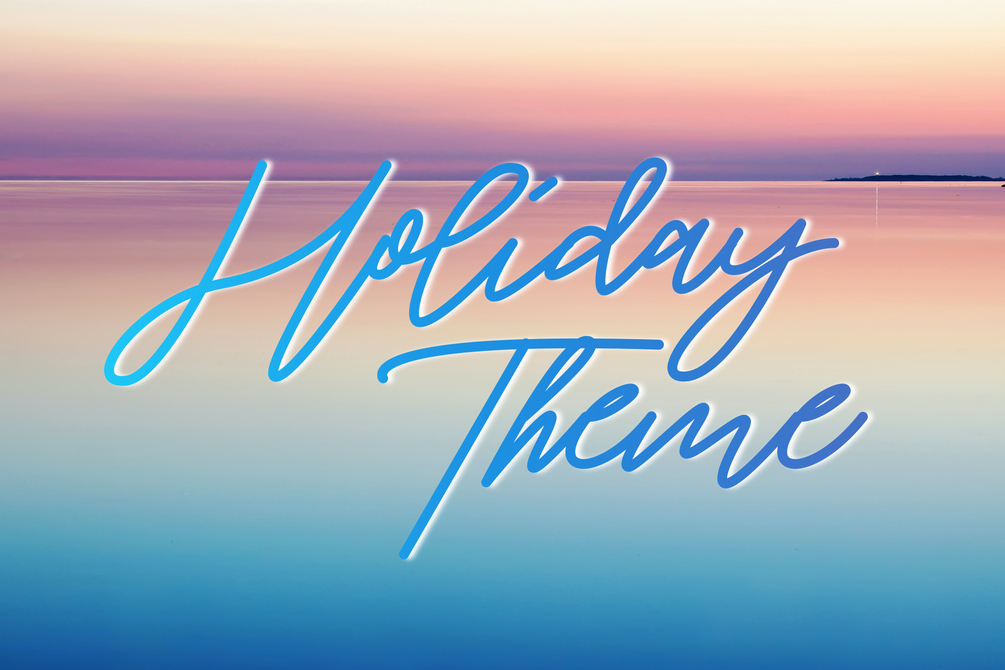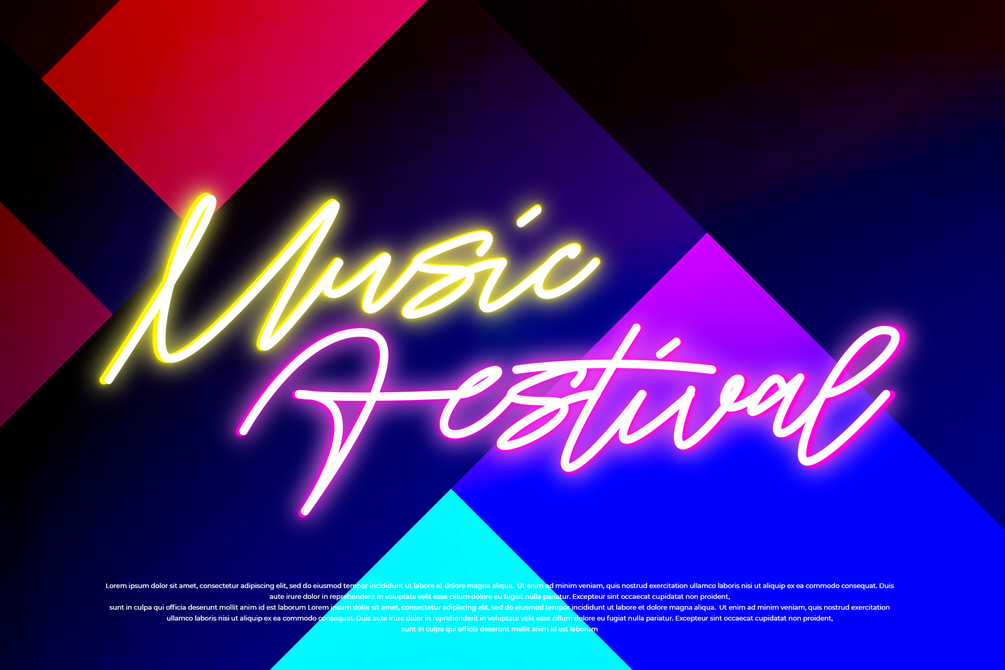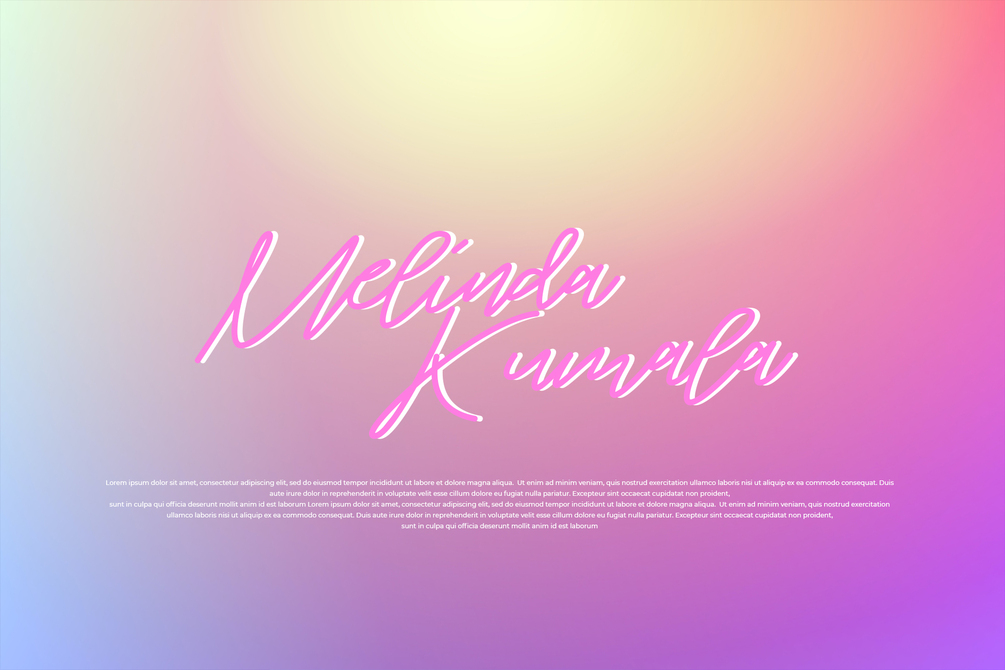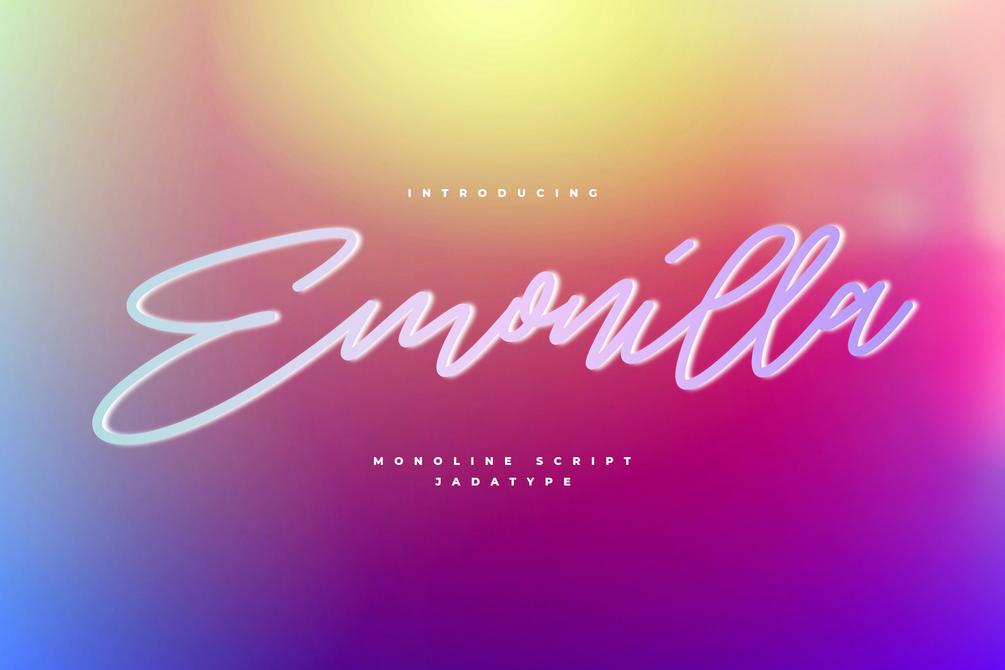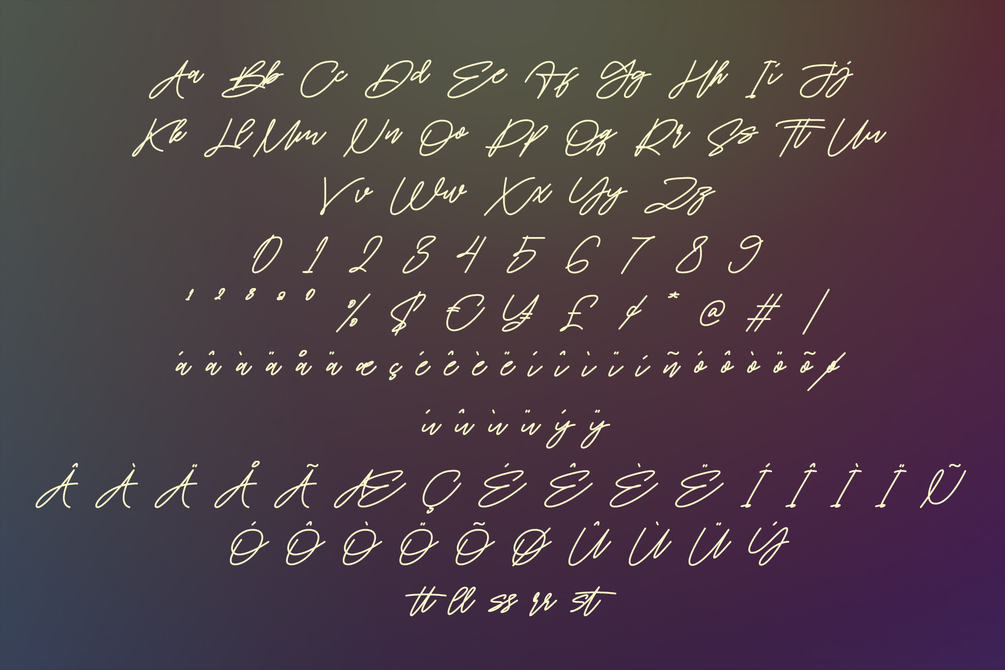
Emonilla Font
Emonilla is a script font that comes with a monoline brush. suitable for posters, tshirt, website, social media, and so on. contains standard English letters, numbers, punctuation, and several accents that support multilingualism.